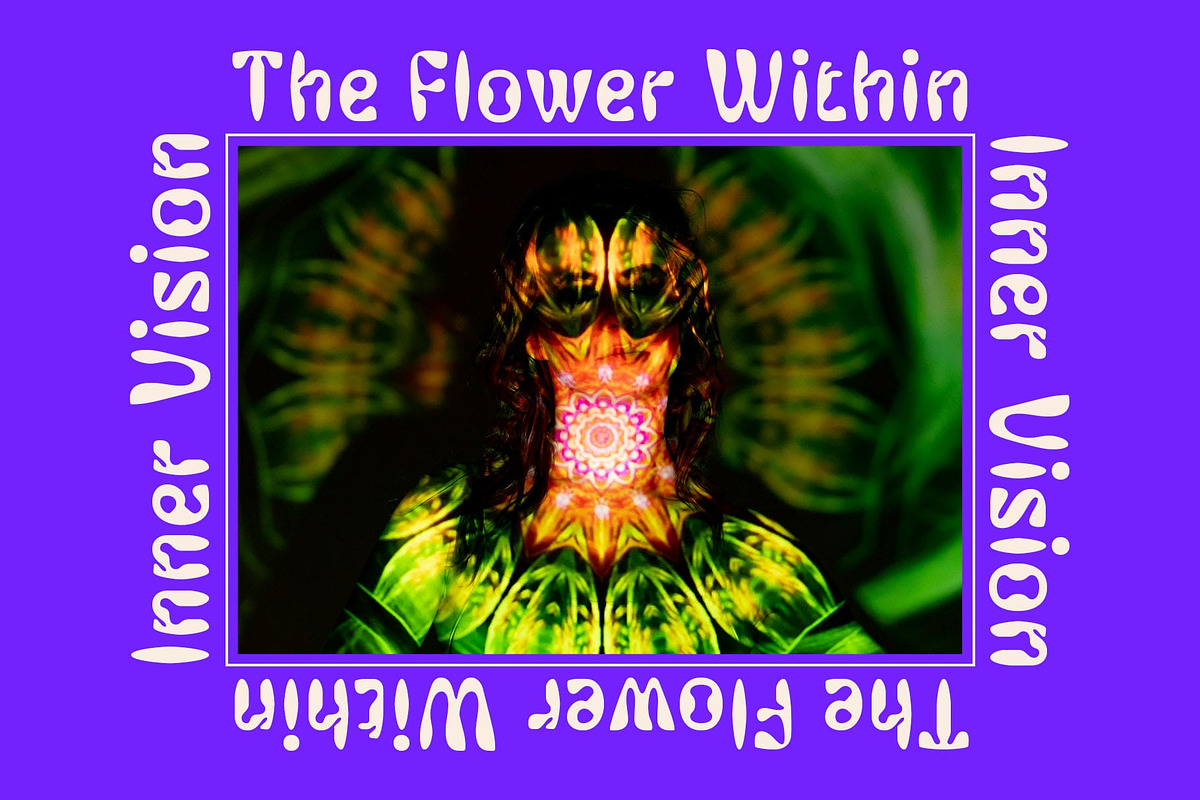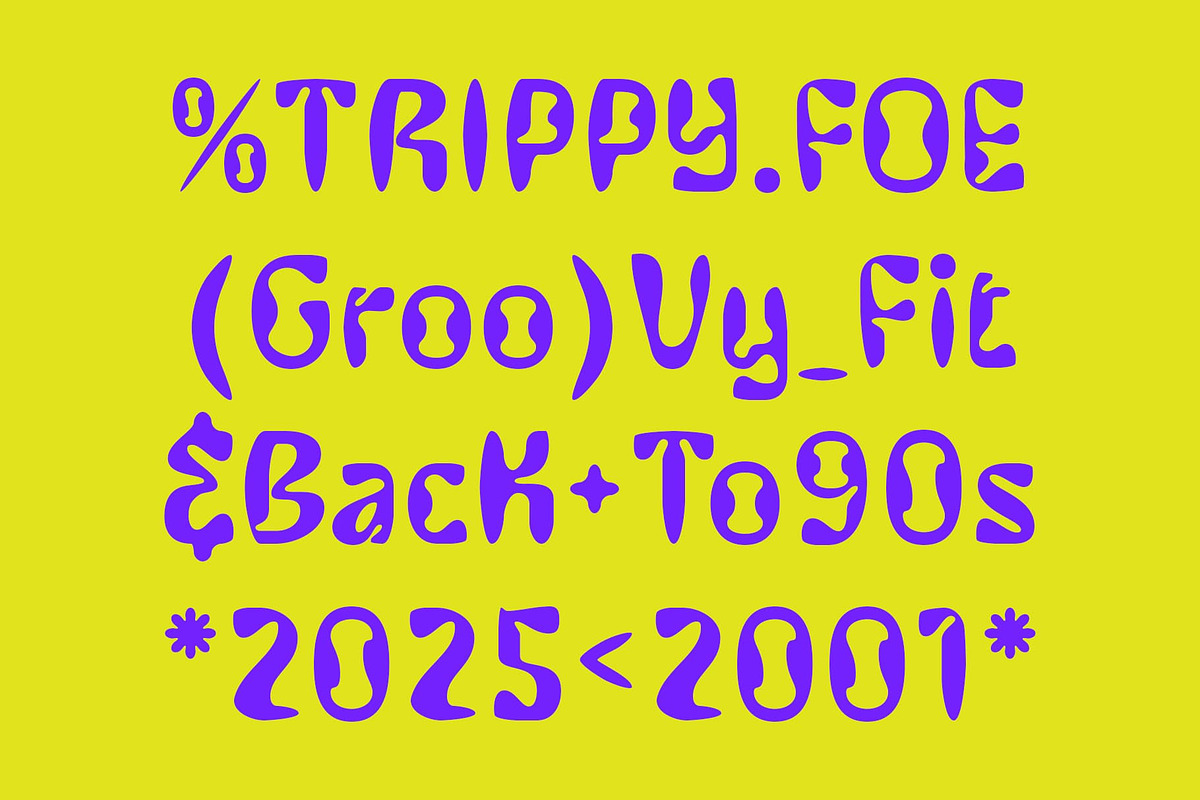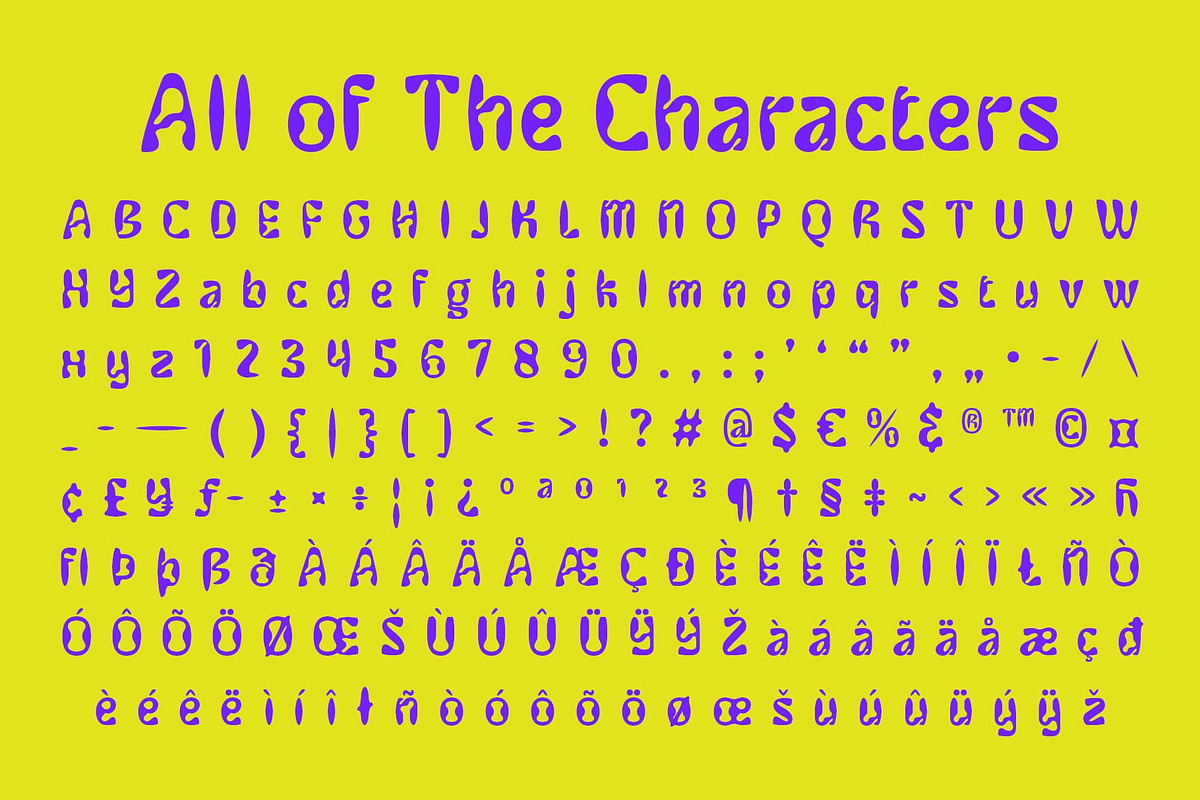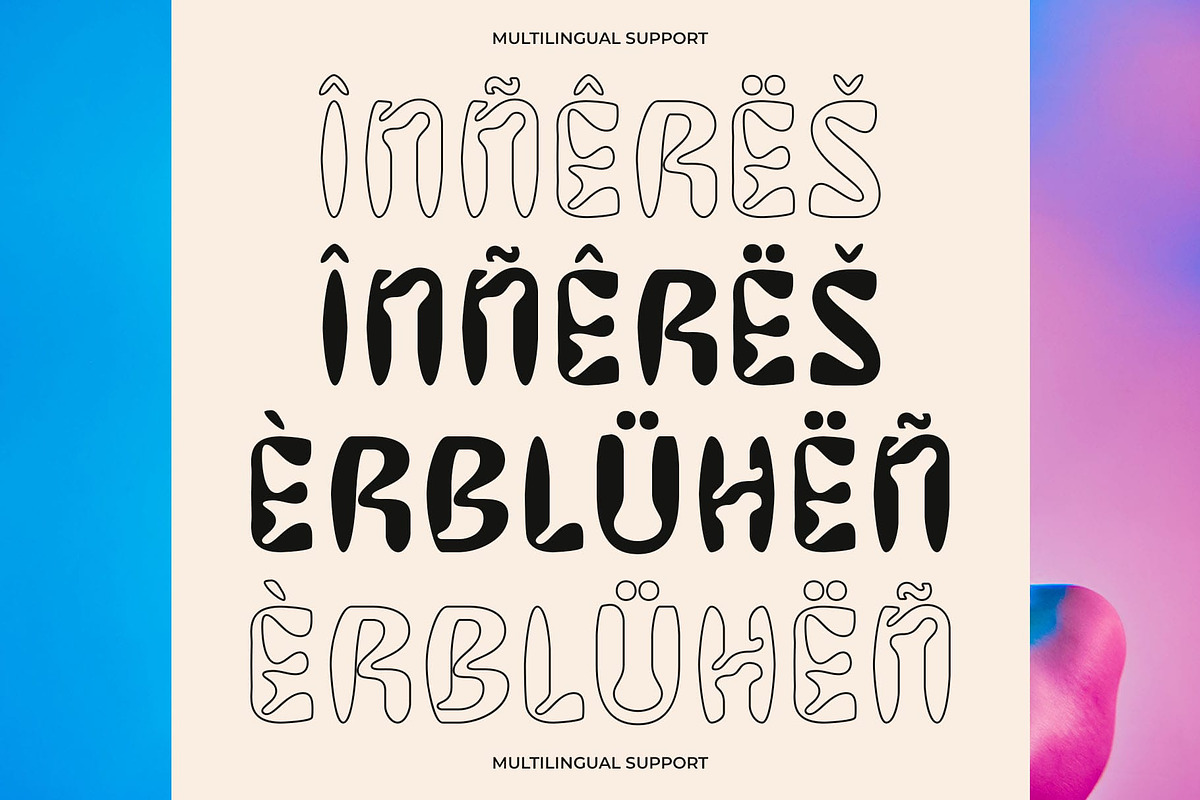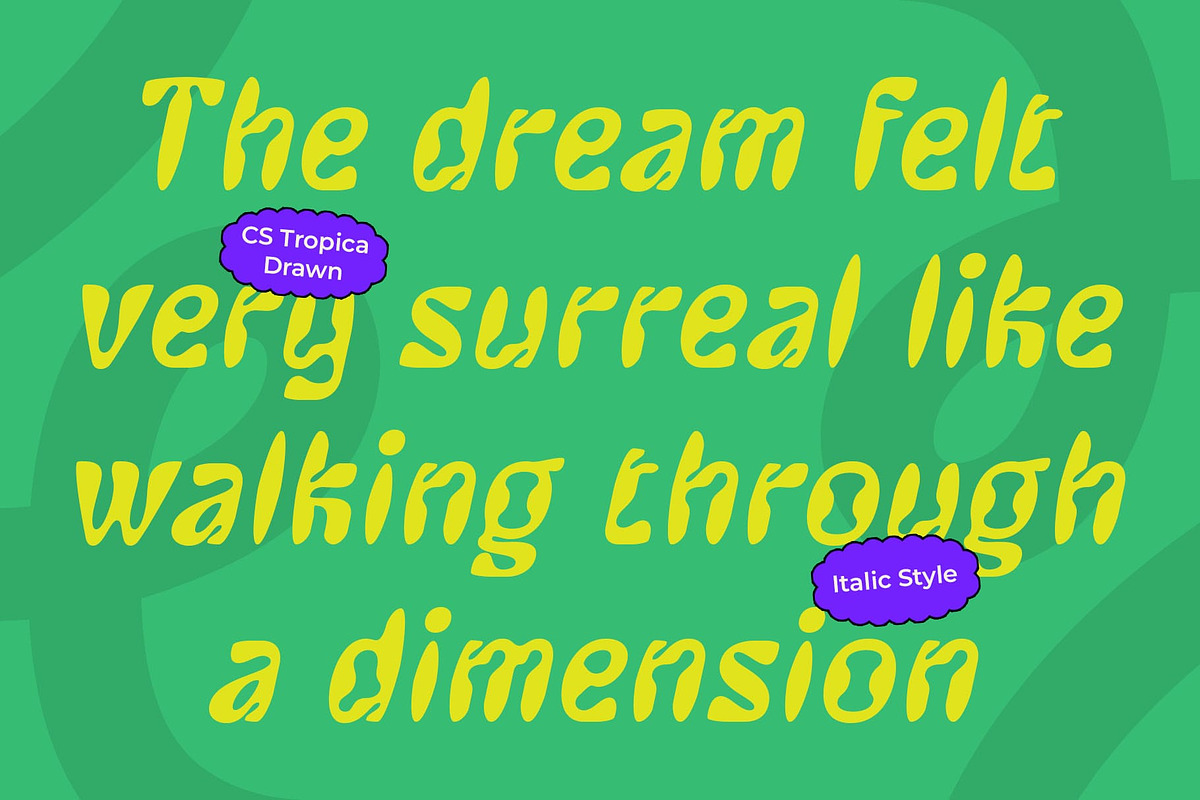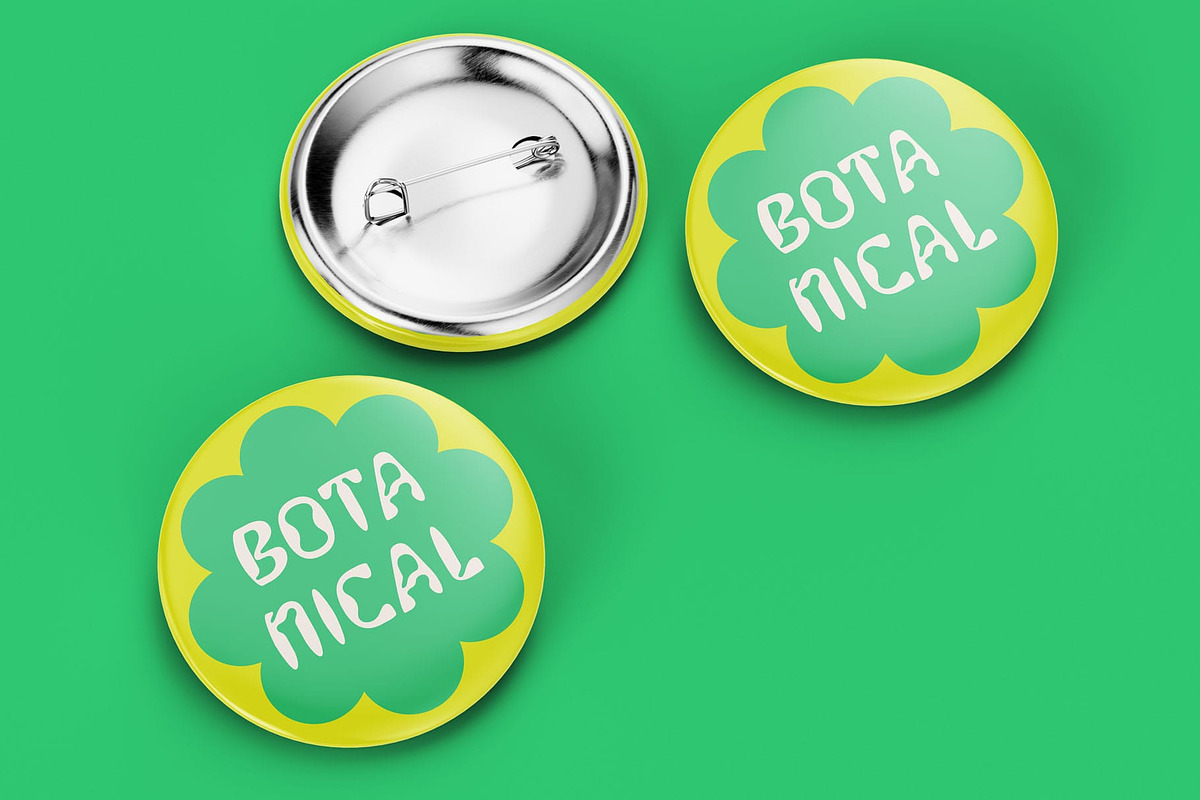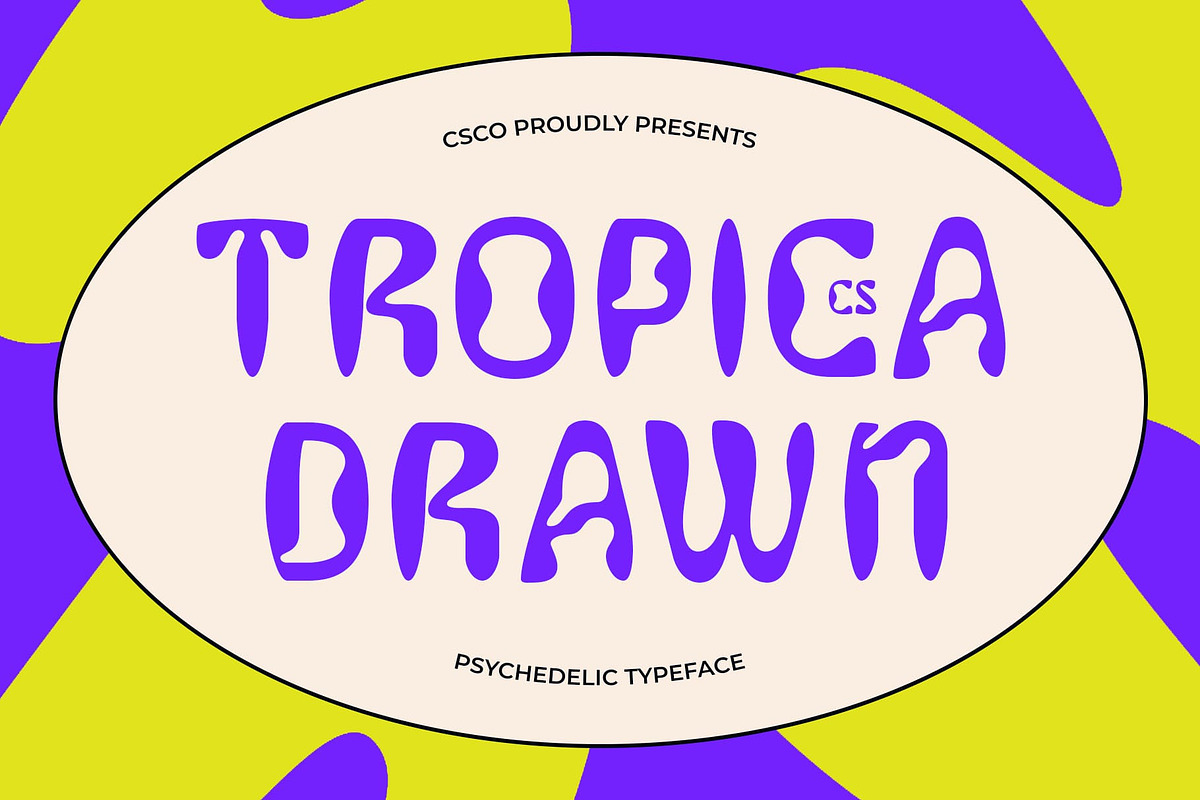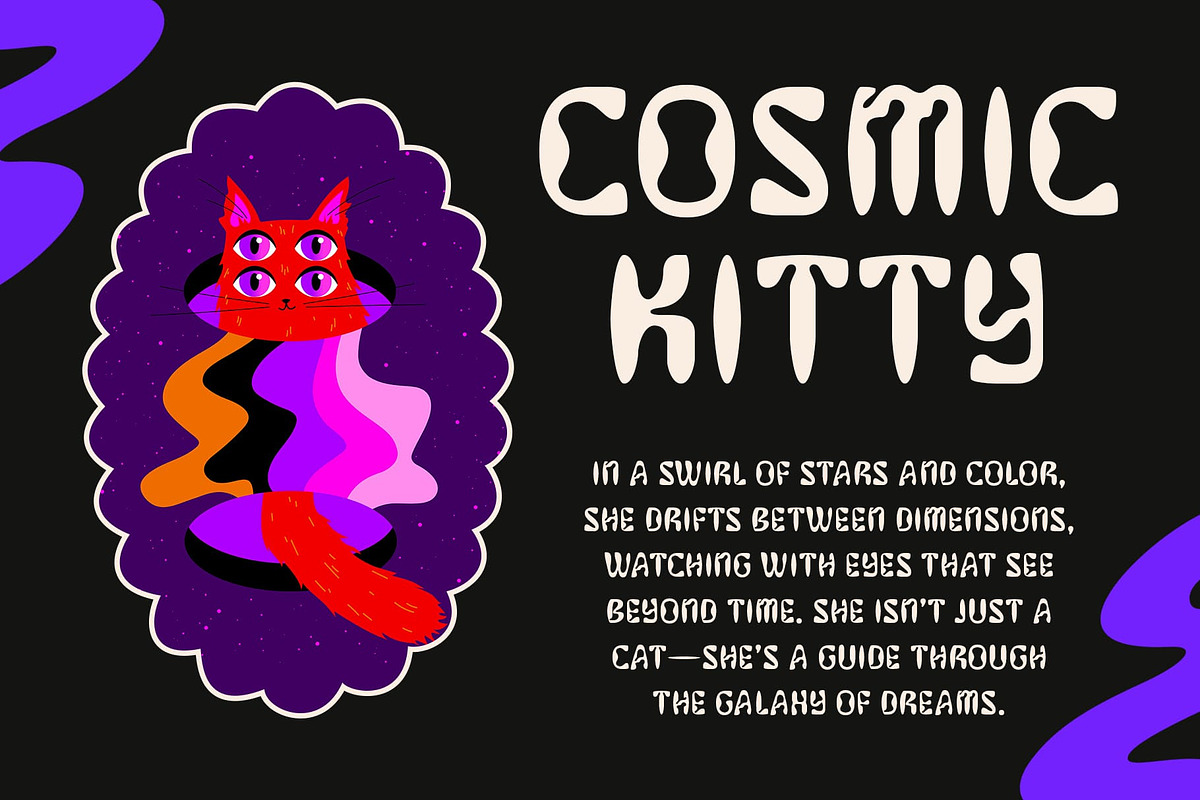
CS Tropica Drawn
CS Tropica Drawn – A Free-Spirited Fusion of Psychedelia and Raw Expression
Psychedelic Forms with a Bold Sans Serif Base CS Tropica Drawn is a display sans serif font inspired by the vibrant psychedelia of the 1960s and 70s. Its freeform and exaggerated curves, paired with unconventional and fluid shapes, deliver a funky, bold, and eye-catching presence that feels both retro and radical. Even without serifs, the font’s strong silhouette captures attention and invites creative exploration.
Drawn Effect for Handmade Texture Enhanced with a drawn effect, this unique font carries a rough, hand-drawn quality that adds organic imperfection and artistic charm. The sketch-like details soften its psychedelic boldness, making it feel personal, expressive, and visually rich. This tactile texture infuses your designs with warmth and creative energy.
Expressive Personality with Visual Rhythm Each letterform in this artistic font has its own movement and flow, contributing to an overall playful, eccentric rhythm. This makes the typeface perfect for compositions that need visual dynamism and personality. It strikes a balance between structured sans serif foundations and free-spirited, experimental attitude.
Perfect for Music, Festivals, and Creative Branding Whether you’re designing music posters, album covers, festival identities, or any art-driven branding, this unconstrained font delivers vibrancy, nostalgia, and artistic flair. It’s ideal for creative projects that celebrate freedom of expression, countercultural vibes, and designs that are boldly unconventional and full of character.
- CS Tropica Drawn Regular
- CS Tropica Drawn Italic